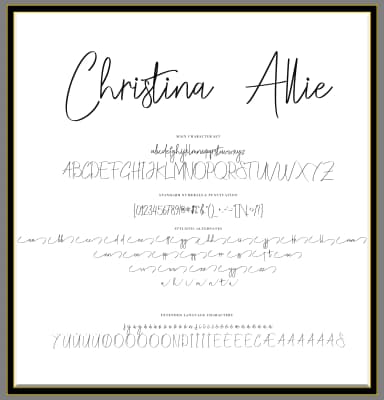
Christina Allie Font by zulkhairilettering is a refined handwritten script that brings sophisticated character and authentic charm to your most memorable creative work. This elegant typeface arrives as a thoughtfully designed dual-style system, where complementary versions work beautifully together across projects. Both styles are enriched with an impressive collection of alternates and ligatures, delivering the natural variation and subtle flourishes that distinguish genuine hand-lettering from sterile, mass-produced typography. The extensive alternate characters ensure that repeated letters maintain visual interest and prevent that cookie-cutter appearance that undermines handwritten aesthetics. Wedding invitation suites naturally showcase what this font does best, bringing refined elegance and personal warmth to formal occasions. Beyond celebrations, Christina Allie excels in custom product packaging labels for artisanal goods like handmade chocolates, small-batch skincare products, and luxury candles seeking an authentic, boutique feel. The script is equally compelling for personalized greeting cards, custom monogram designs, and small business branding where individual character matters more than mass appeal. Social media graphics and personal stationery projects also benefit from the font's ability to convey craftsmanship and care. Whether you're a designer creating bespoke materials or an entrepreneur building a distinctive brand identity, Christina Allie's sophisticated palette of stylistic options ensures your work stands out with genuine character. Get Christina Allie Font on Creative Fabrica to unlock the complete dual-font system with all its rich alternates and ligatures.
Christina Allie Font is a script font that shines as a display or heading face. Pair it with a clean sans-serif or serif font for body text β the contrast creates a clear hierarchy while the two styles stay balanced and easy to read.
Christina Allie Font